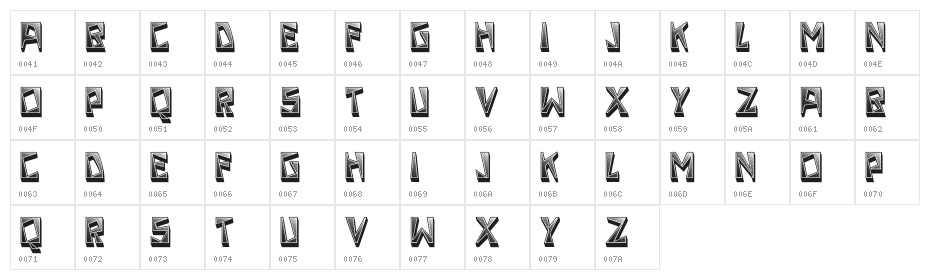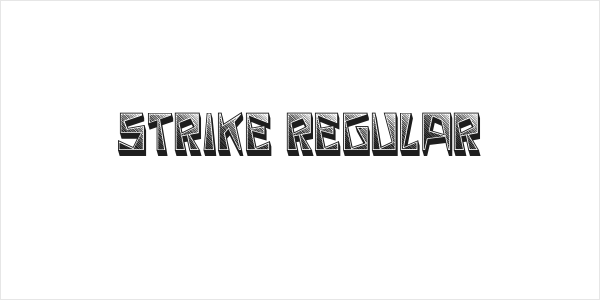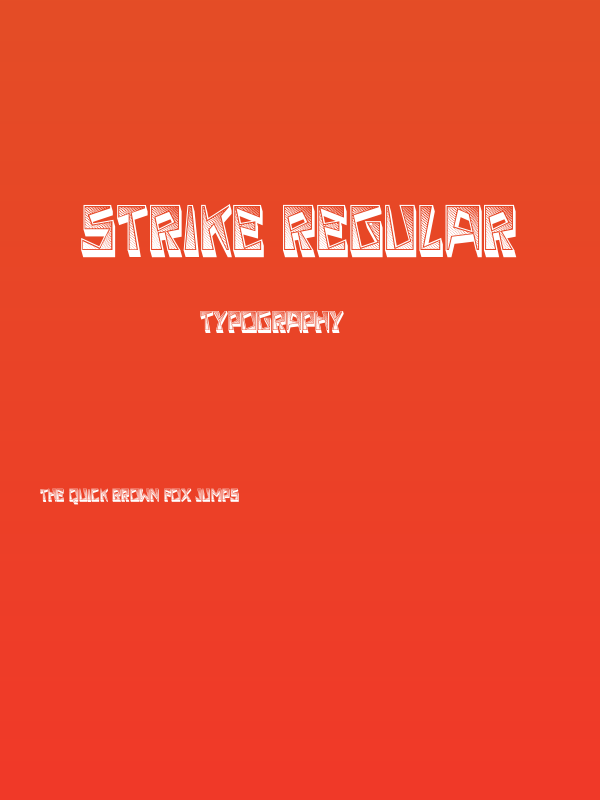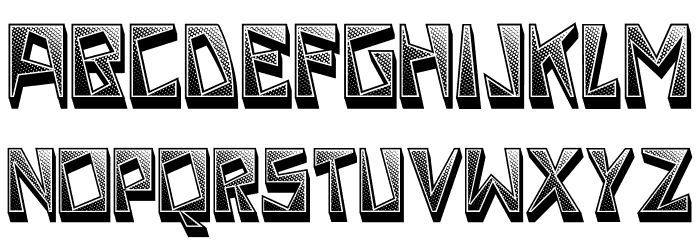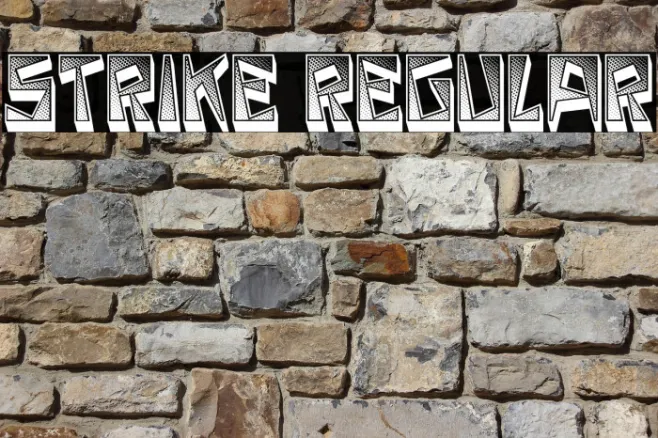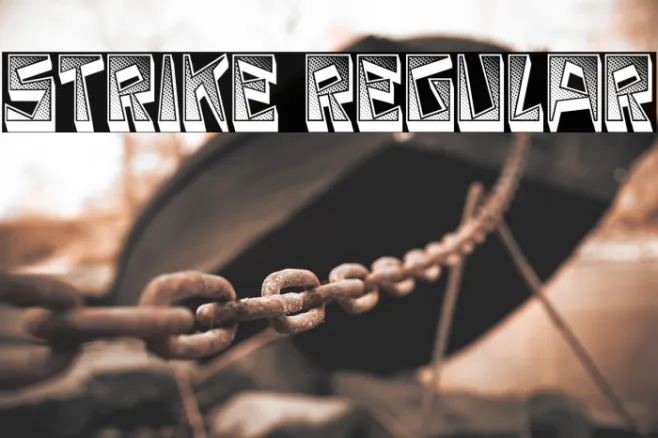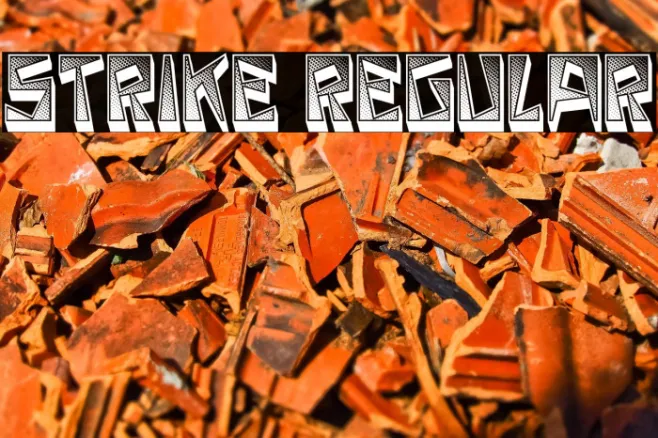
Strike Regular Font
Strike Regular Description
This font features a bold, dynamic style with a three-dimensional effect that gives it a striking appearance. Each character is outlined with a thick black border, filled with a dotted texture that adds depth and visual interest. The letters are angular and geometric, creating a sense of movement and energy. This font is highly decorative, making it suitable for attention-grabbing headlines or titles. The uppercase letters are consistent in height, providing a uniform look across the text. The overall design is modern and edgy, perfect for projects that require a bold statement.
| Proposed Projects | Ideal for posters, logos, album covers, and any project needing a bold, dynamic look. |